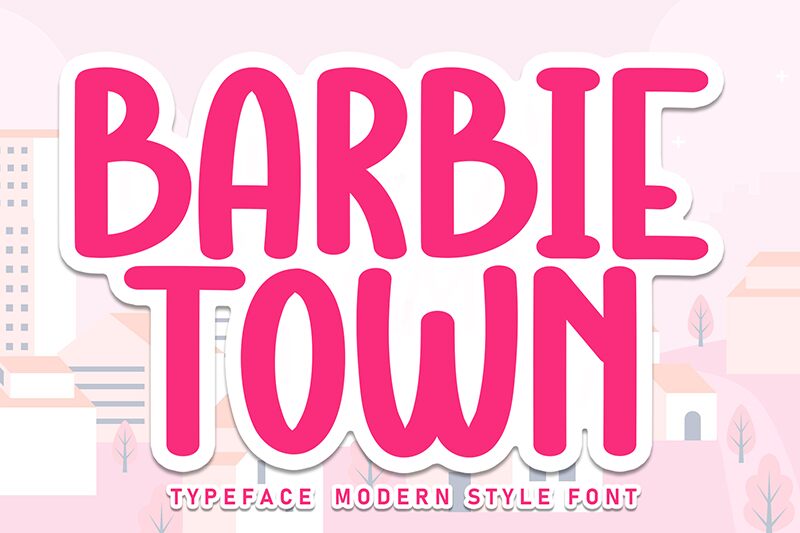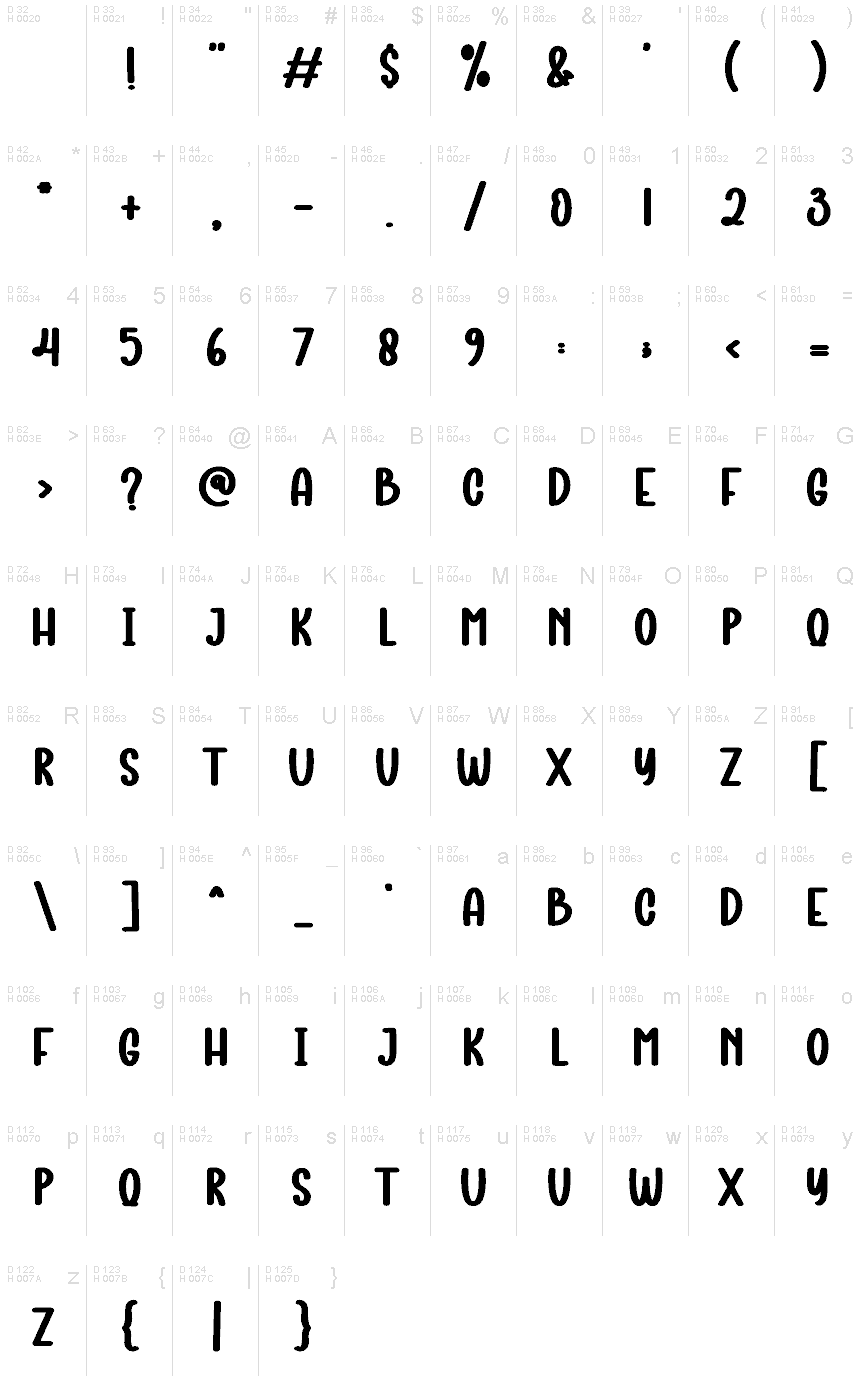
Barbie Town
Barbie Town font is a handwritten font from Scratchones that gives off a nostalgic feel of mid-20th-century pop culture designs. Its rounded, casual, and friendly appearance makes this free font both approachable and retro-inspired, adding a unique atmosphere to your projects.
This font finds its best use in playful marketing campaigns and vintage-inspired events by encapsulating the theme through written words. Use it freely for contemporary branding in fashion or lifestyle products, toy packaging design, video titles/credits, merchandise apparel printings, decorative posters/prints, or museum/gallery exhibition posters.